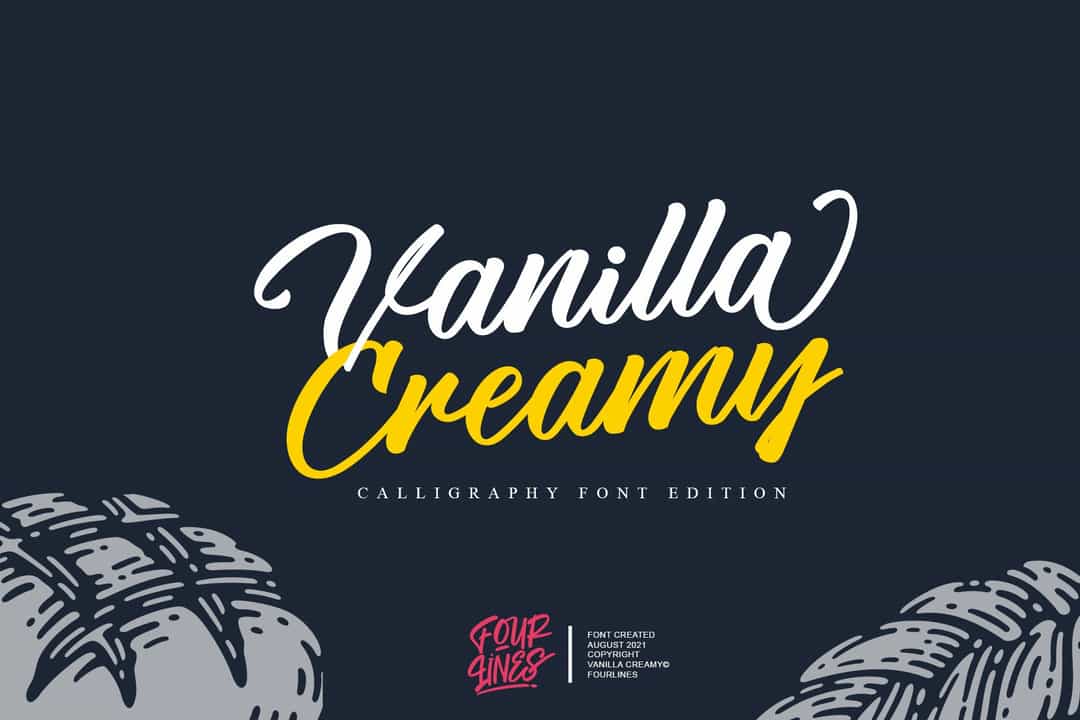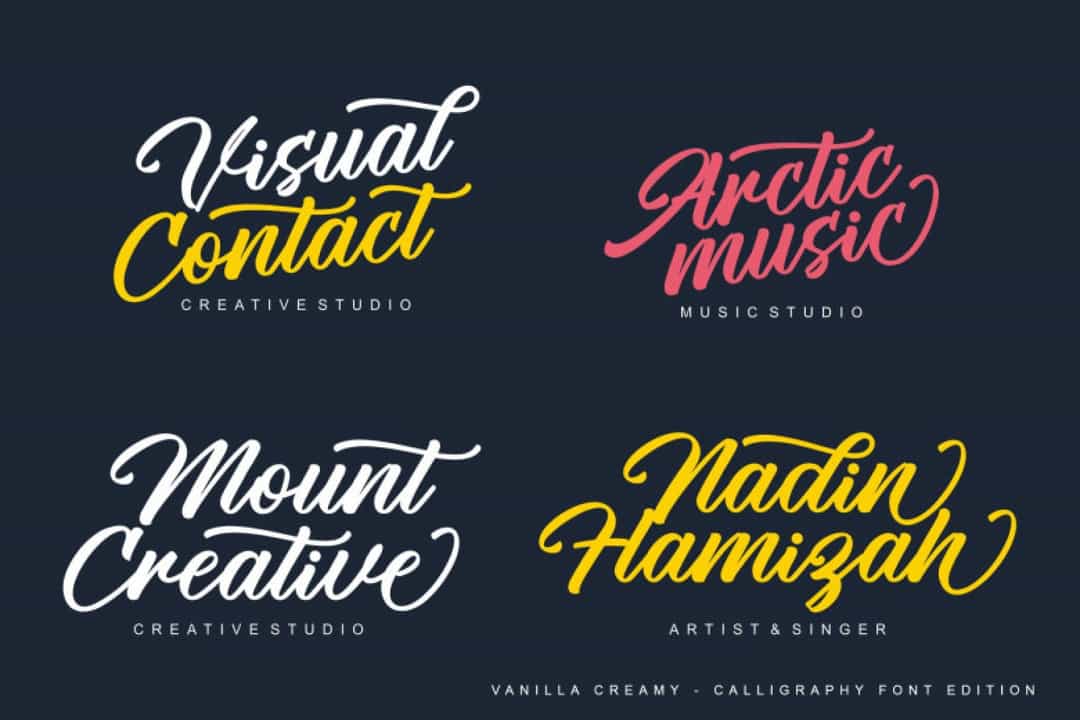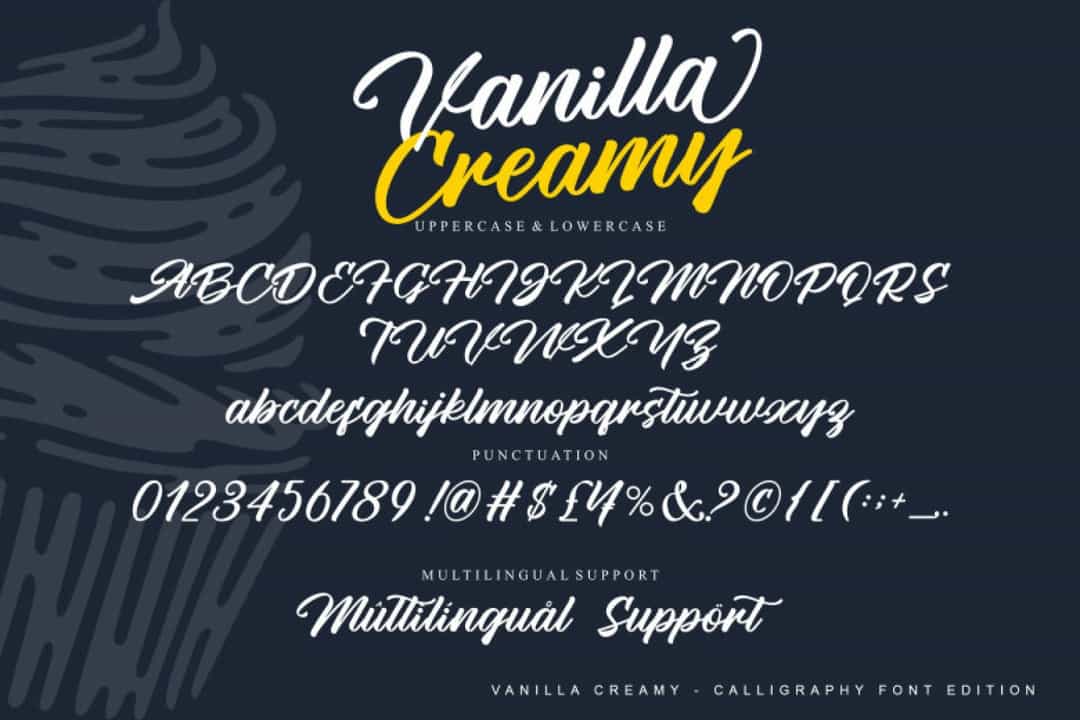
Vanilla Creamy Calligraphy is an elegant script. Perfect for wedding invites, thank-you cards and quotes as well as greeting cards or business cards with handwritten notes; as well as business cards logos or any other design needing handwriting notes.